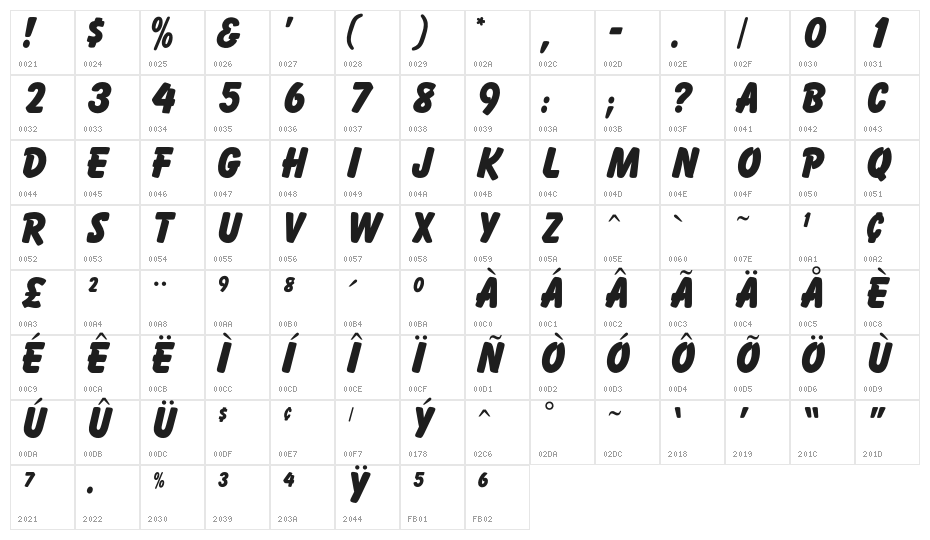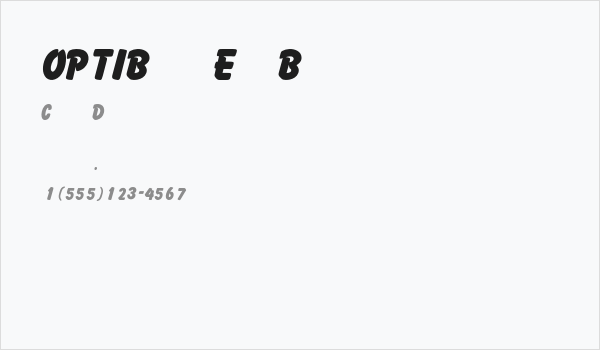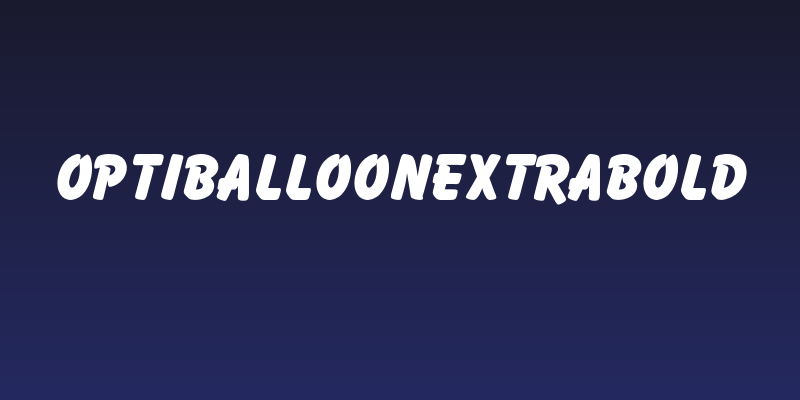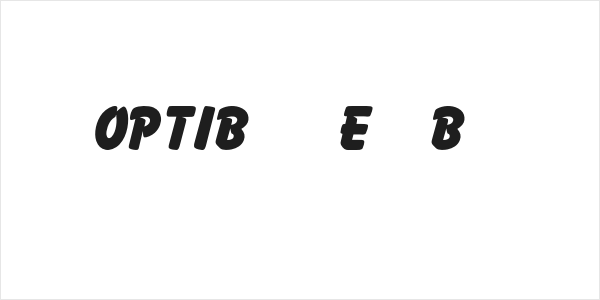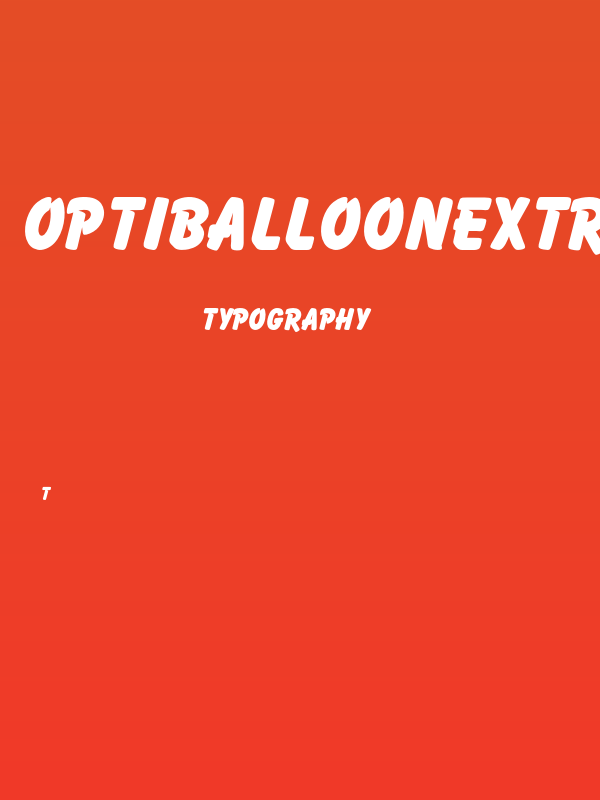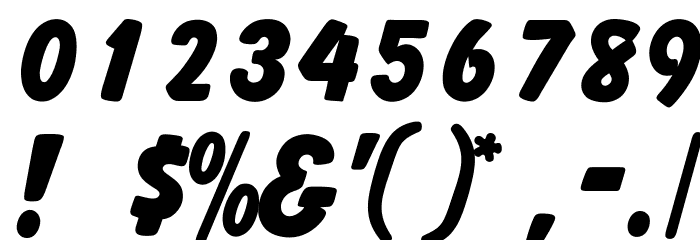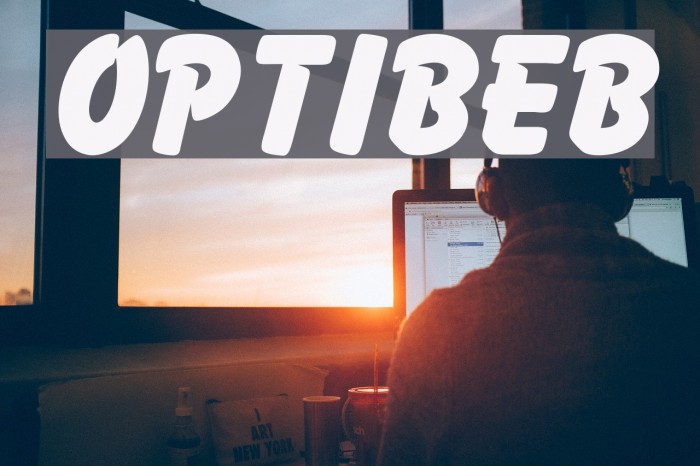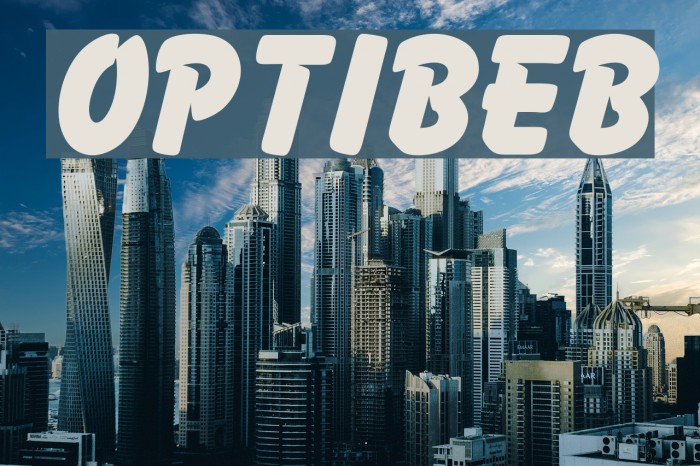
OPTIBalloonExtraBold Font
OPTIBalloonExtraBold Description
This playful and bold typeface features rounded, balloon-like characters that exude a sense of fun and whimsy. The letters are thick and substantial, with a smooth, flowing style that makes them stand out. The uppercase and lowercase letters maintain a consistent weight, ensuring readability while adding a touch of personality. The numbers and special characters follow the same design principles, offering a cohesive look across all elements. This font is perfect for projects that require a lively and engaging appearance, such as children's books, party invitations, or playful branding.
| Overall Style | Playful, Fun |
| Proposed Projects | Ideal for children's books, party invitations, playful branding, and any project needing a fun, engaging look. |